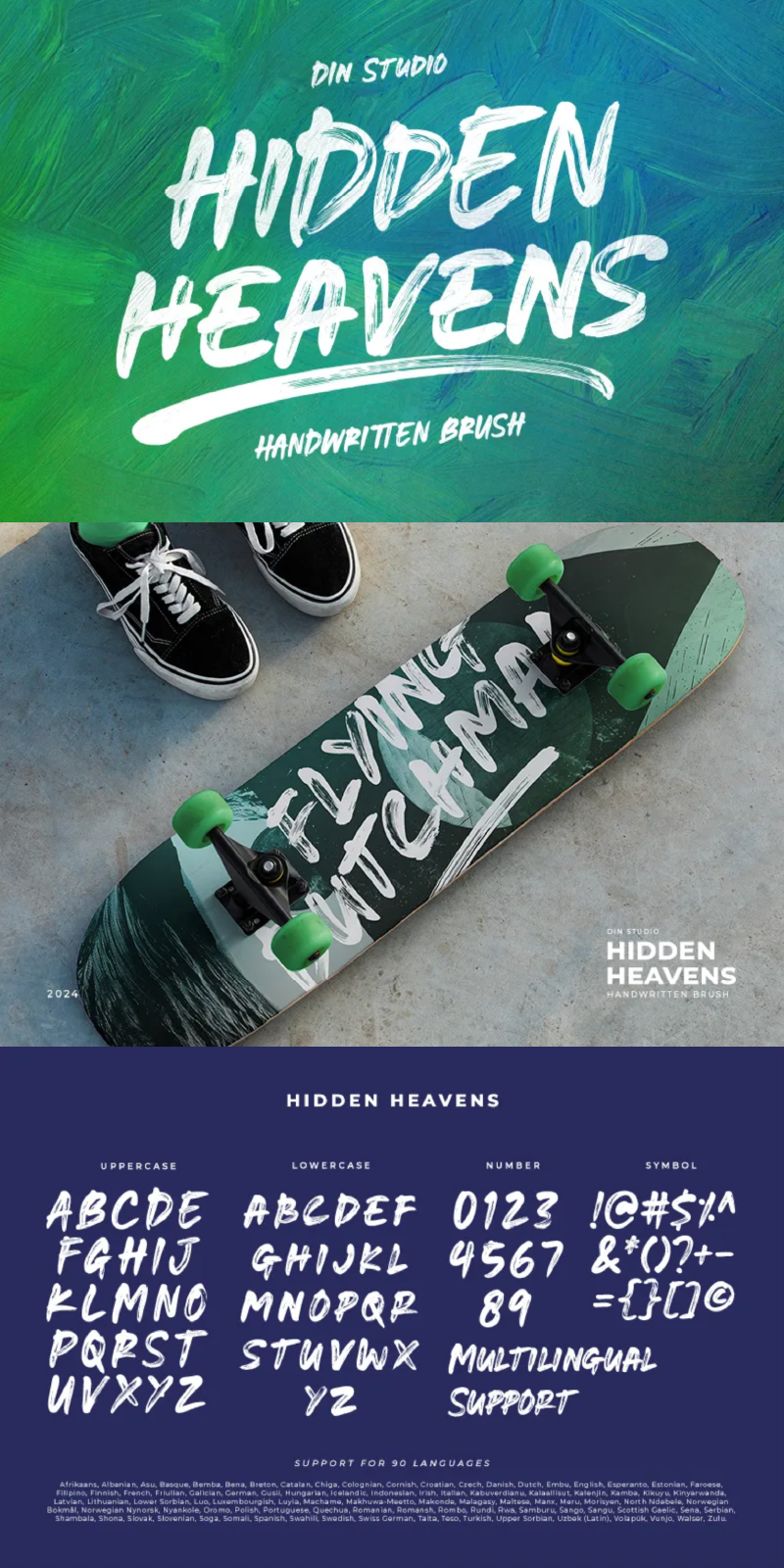
Hidden Heavens Font
About Hidden Heavens
Hidden Heavens is an uppercases brush font that radiates a warm, friendly vibe. Characterized by rounded shapes and consistent proportions, each letter feels cohesive and balanced—perfect for adding a handcrafted touch. With its soft curves and bold strokes, Hidden Heavens brings a sense of inviting style to any design. In addition, enjoy the features here.
• Swashes